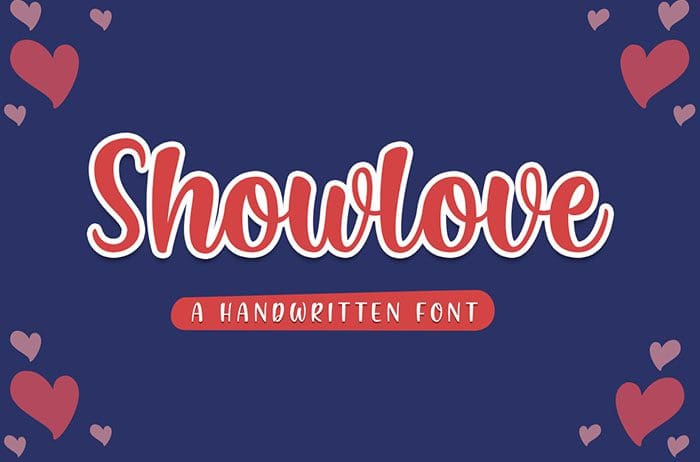
Free Showlove Handwritten Font is a lovely and funny font. This font includes full of Alphabetical glyphs, Numerals, and punctuation. This is so perfect for invitations, branding, crafting or logotype. This font is available only for personal use. Created this font by Teguh Subiyantoro. You can also search more freeĀ Handwritten Fonts. Thanks!